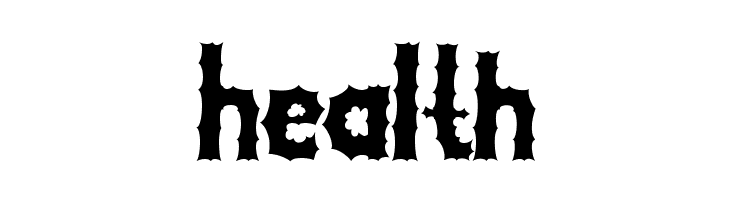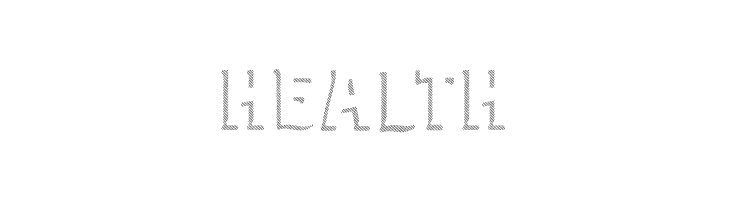
A bold, jagged font with a Halloween-inspired, carved pumpkin look.
A bold, stencil-style font with diagonal hatching for a modern, industrial look.
A bold, textured font with a stitched, handcrafted appearance.
A playful, hand-drawn font with a sketch-like, artistic style.
A playful, hand-drawn font with a sketch-like appearance and irregular strokes.
A playful, hand-drawn font with rounded, consistent strokes and a sketch-like quality.
A playful, hand-drawn font with a sketch-like, casual style.
A hand-drawn, sketch-style font with an artistic and informal appearance.
A thin, hand-drawn font with a sketch-like, artistic appearance.
A hand-drawn, sketch-like font with thin, irregular strokes for a casual, artistic feel.